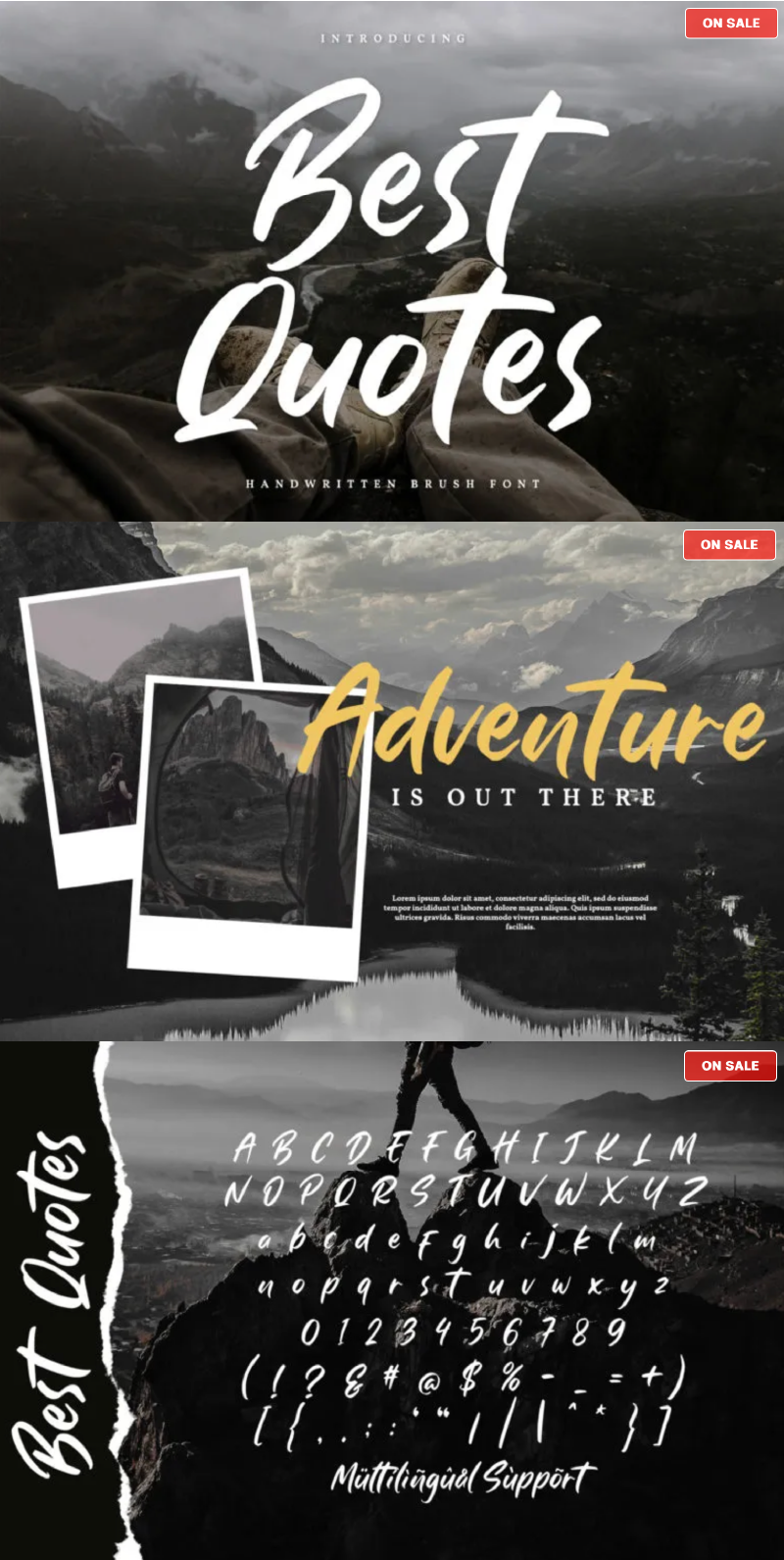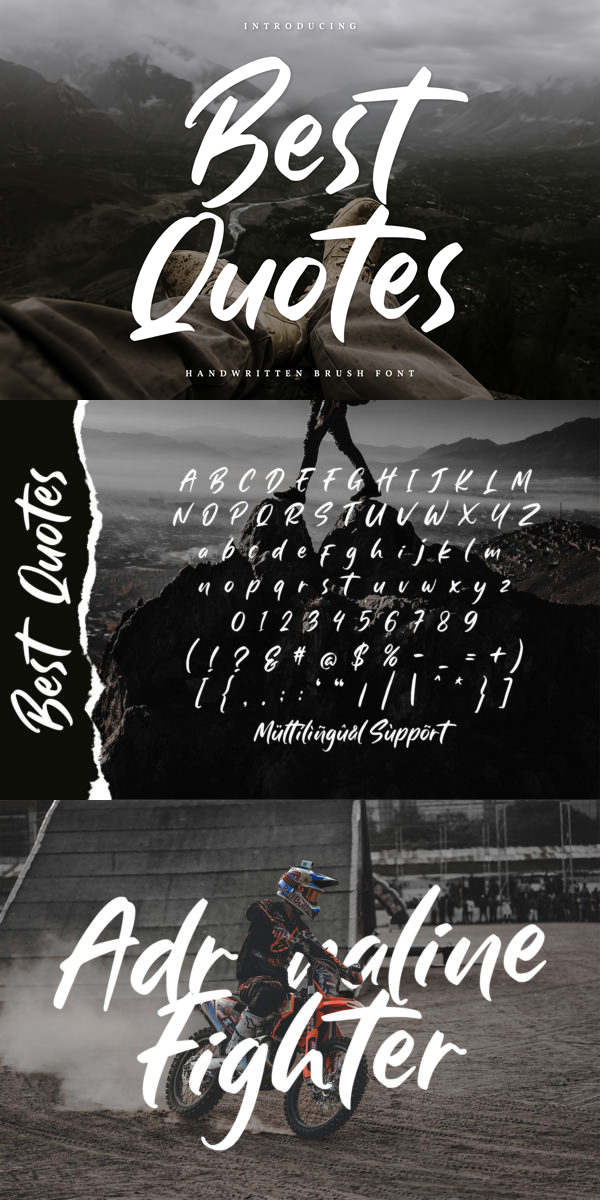
Best Quotes Font
About Best Quotes
Best Quotes is a classy handwritten font made for any professional project brandings. It is best applied for logos, brandings, and quotes. Every letter has a unique and beautiful touch. Worry no more since our font always includes Multilingual Supports to make your brandings reach a global audience.